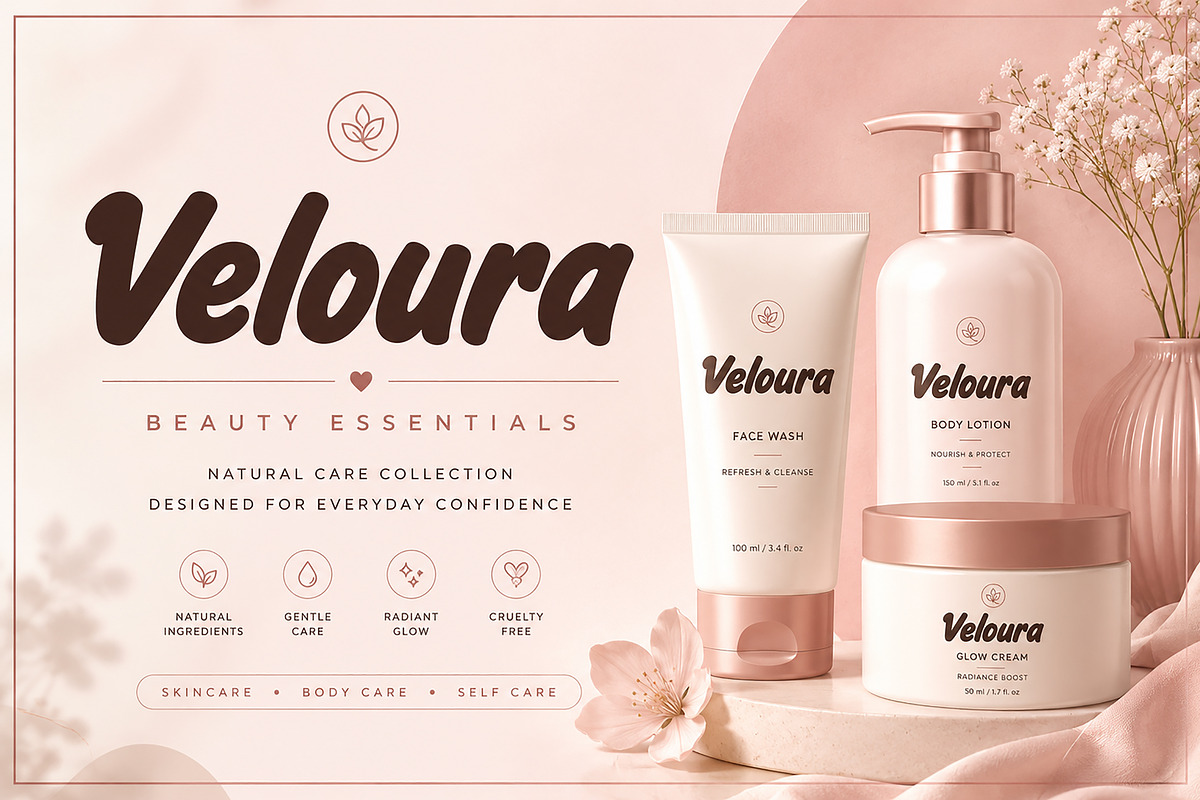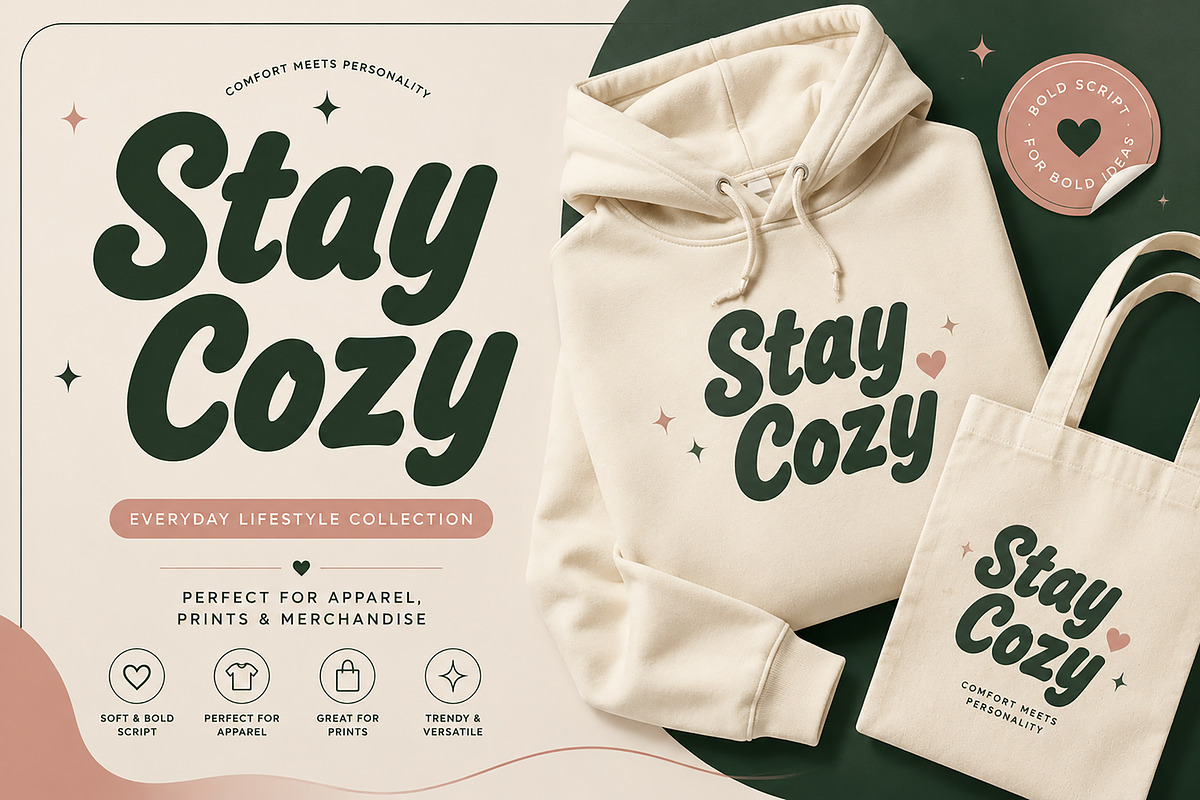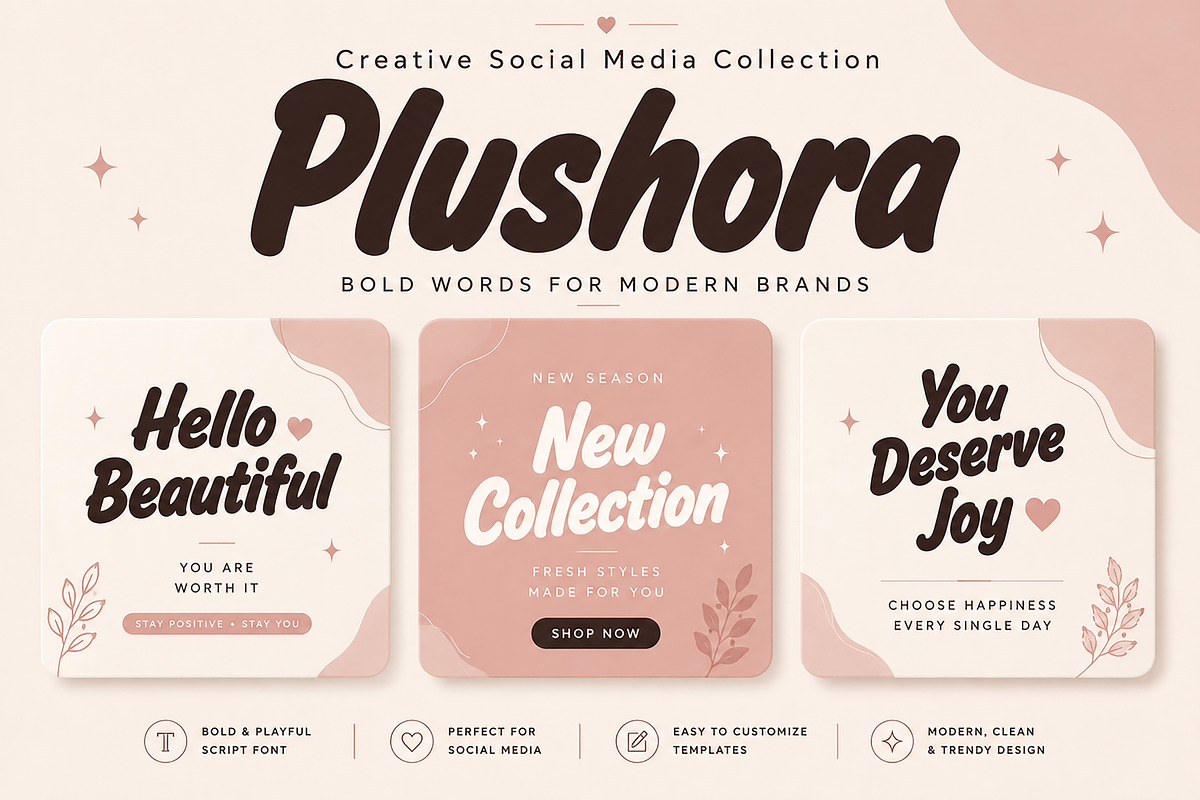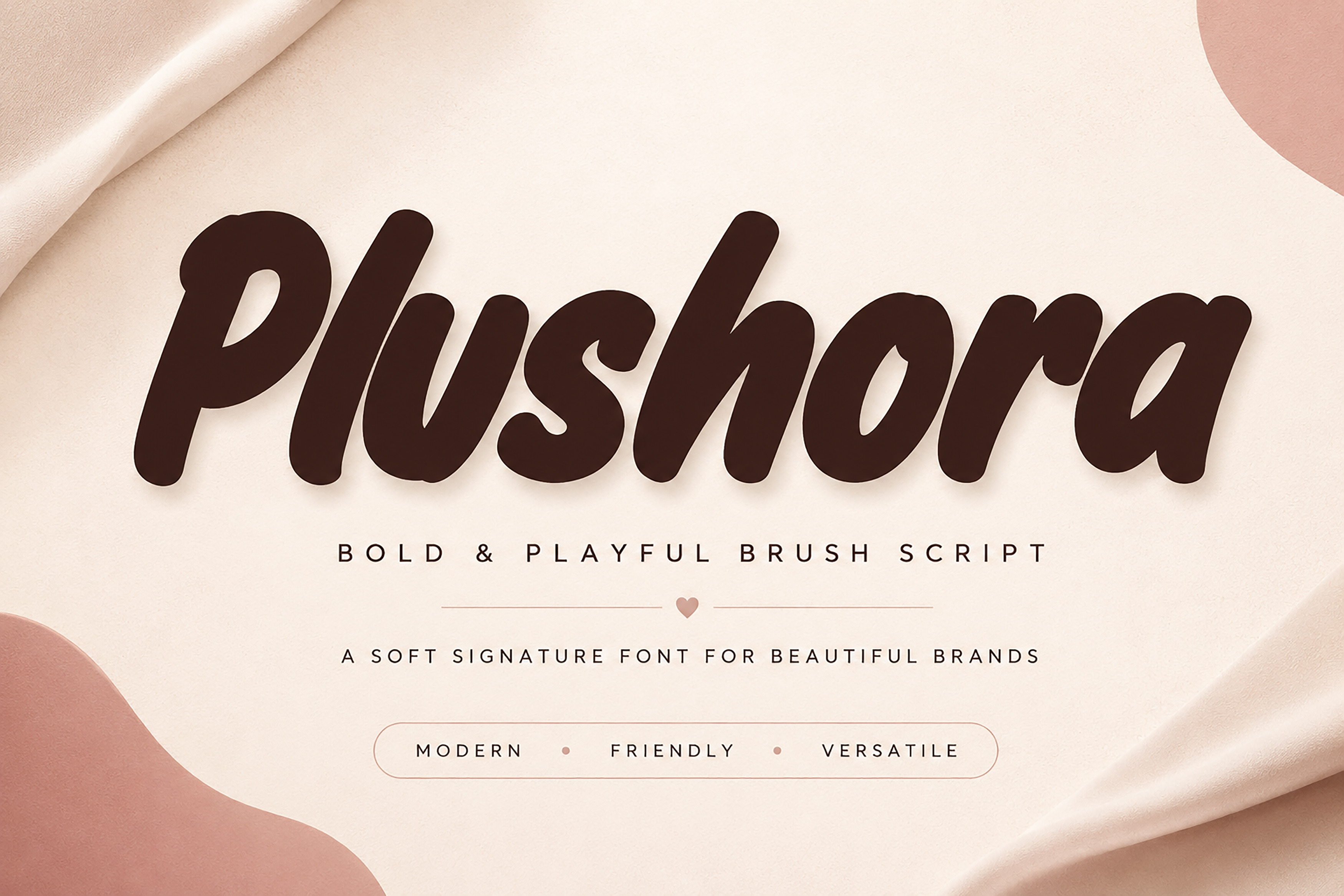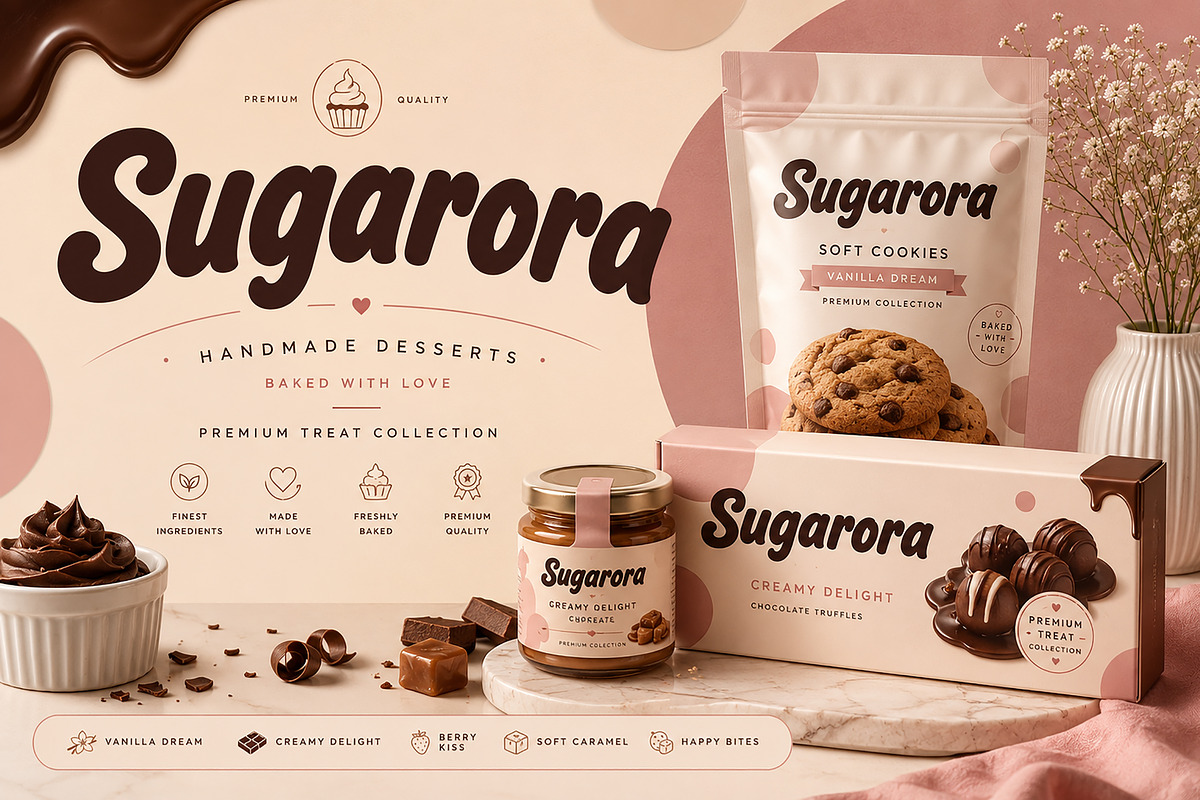
Plushora – Bold Script Font
Plushora – Bold & Playful Brush Script Font
Plushora is a bold, playful brush script font designed to bring warmth, personality, and charm to your creative projects. With its smooth curves, rounded strokes, and handcrafted feel, Plushora is perfect for eye-catching branding, modern packaging, social media graphics, merchandise, and stylish typography.
Whether you're creating a beauty brand, bakery packaging, boutique logo, apparel design, or Instagram content, Plushora delivers a friendly and professional look that stands out effortlessly.
Its bold letterforms ensure excellent readability while maintaining a soft, handcrafted aesthetic, making it a versatile choice for both print and digital designs.
Beauty & Cosmetic Branding
Boutique Logos
Bakery & Dessert Packaging
Café & Restaurant Branding
Fashion & Apparel
Merchandise Design
Social Media Posts
Instagram Templates
Greeting Cards
Invitations
Posters
Stickers
T-Shirts
Quotes
Advertising
Website Headers
Creative Branding
Modern Typography
Lifestyle Designs
Bold Brush Script Style
Smooth & Rounded Letterforms
Clean and Readable Design
Modern Handcrafted Look
Perfect for Branding & Packaging